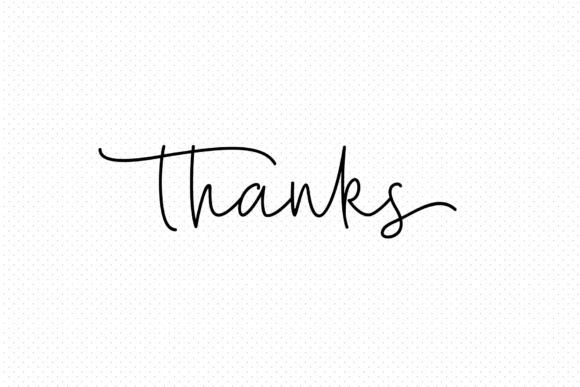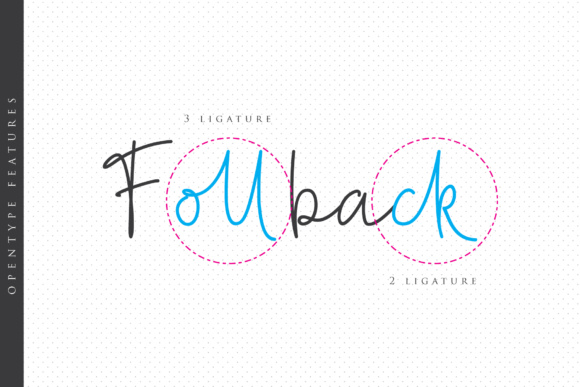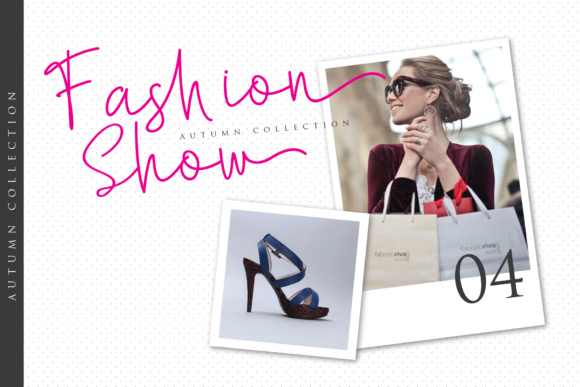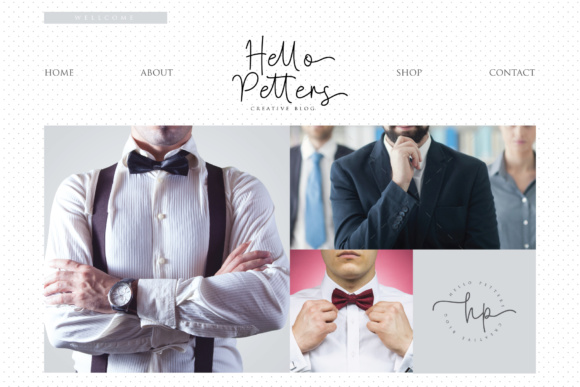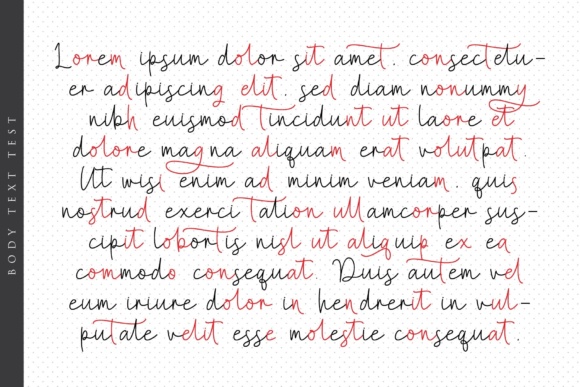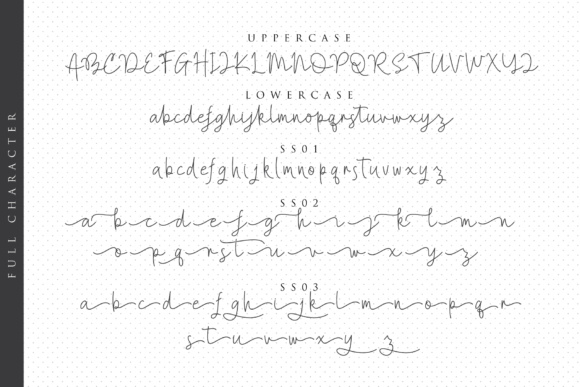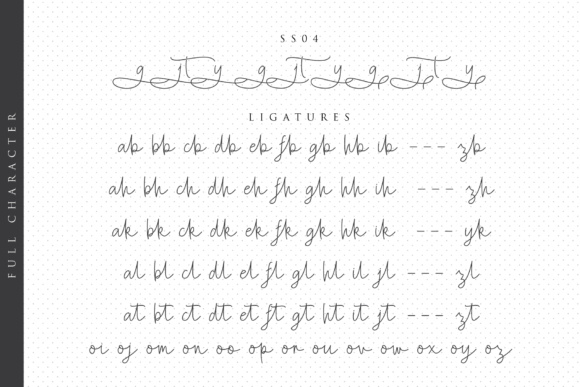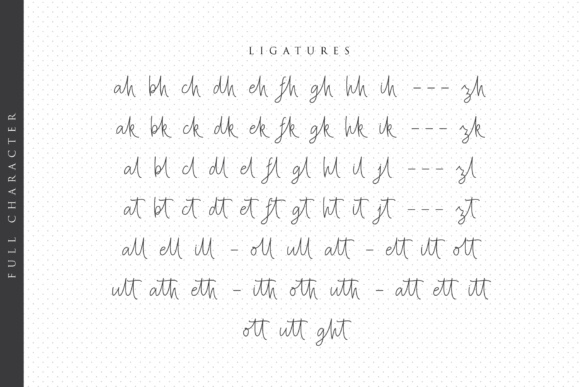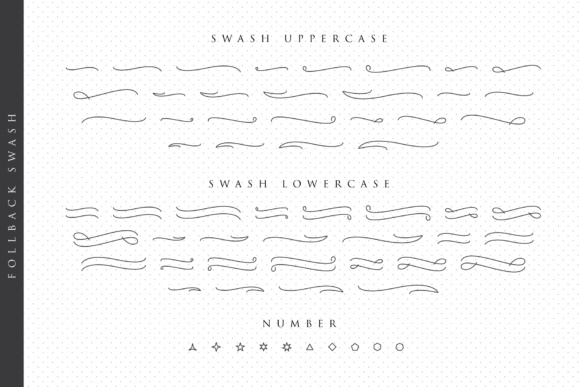
Follback Font
About Follback Font
Introducing the elegant new Follback Script Font! For those of you who are needing a touch of elegance and modernity for your designs, this font was created for you!
Follback Script Font was built with OpenType features and includes beginning and ending swashes, ligature, numbers, punctuation, alternates and it also supports other languages.